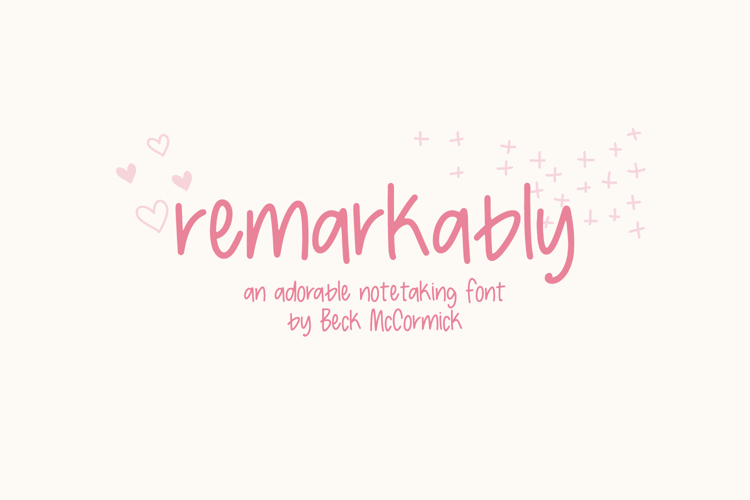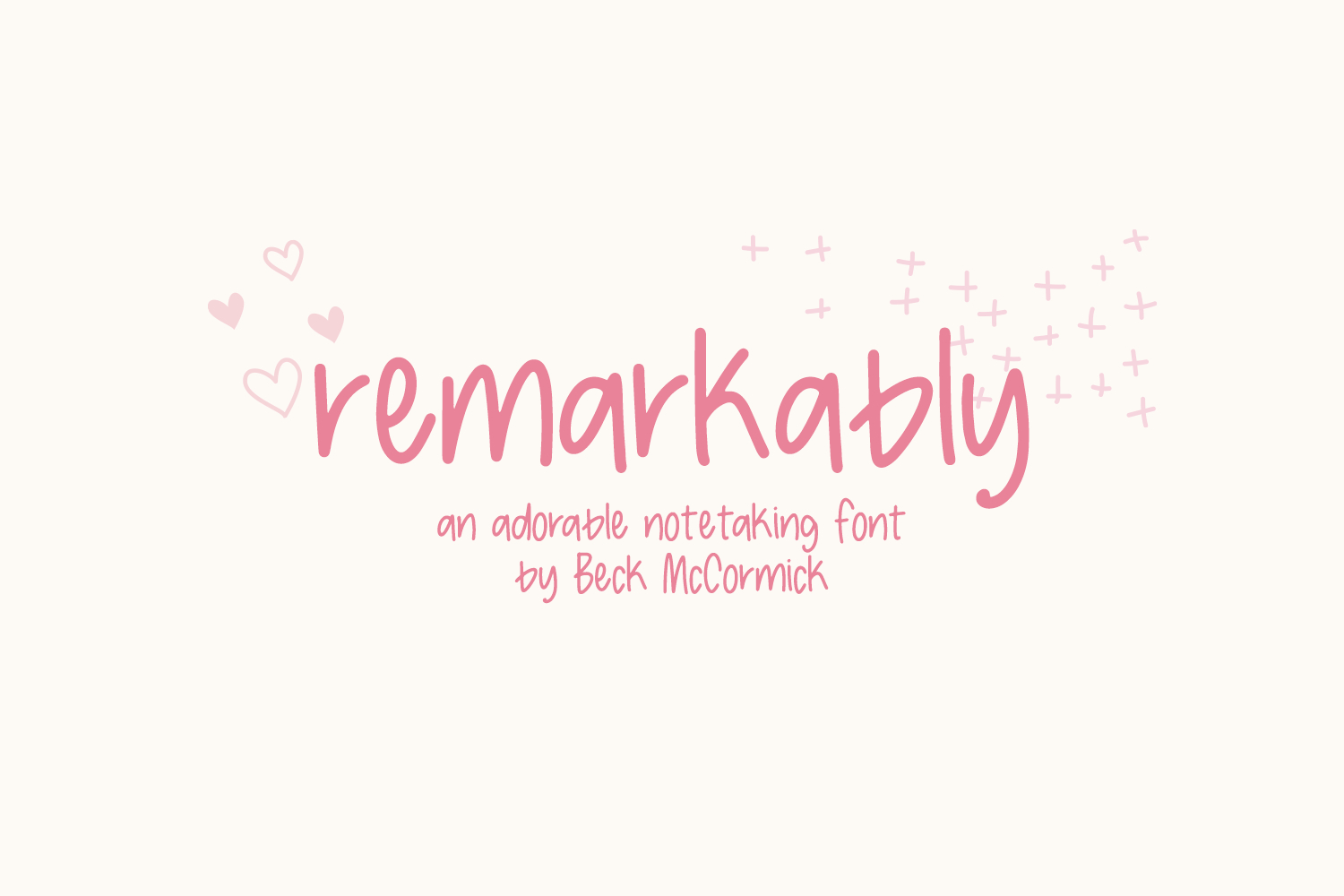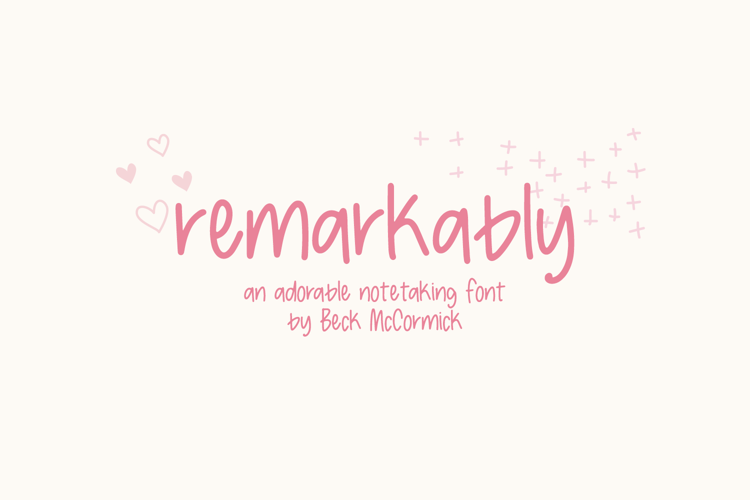
Remarkably Sans is a neat & tidy hand lettered font. It’s the perfect fit for your digital planner or note-taking app, and is super legible. Remarkably will be a great fit for your cute home decor projects, your Cricut or Silhouette machine, or logo & branding projects, as well as social media or marketing graphics.
Remarkably includes:
- 2 ligatures, tt, th